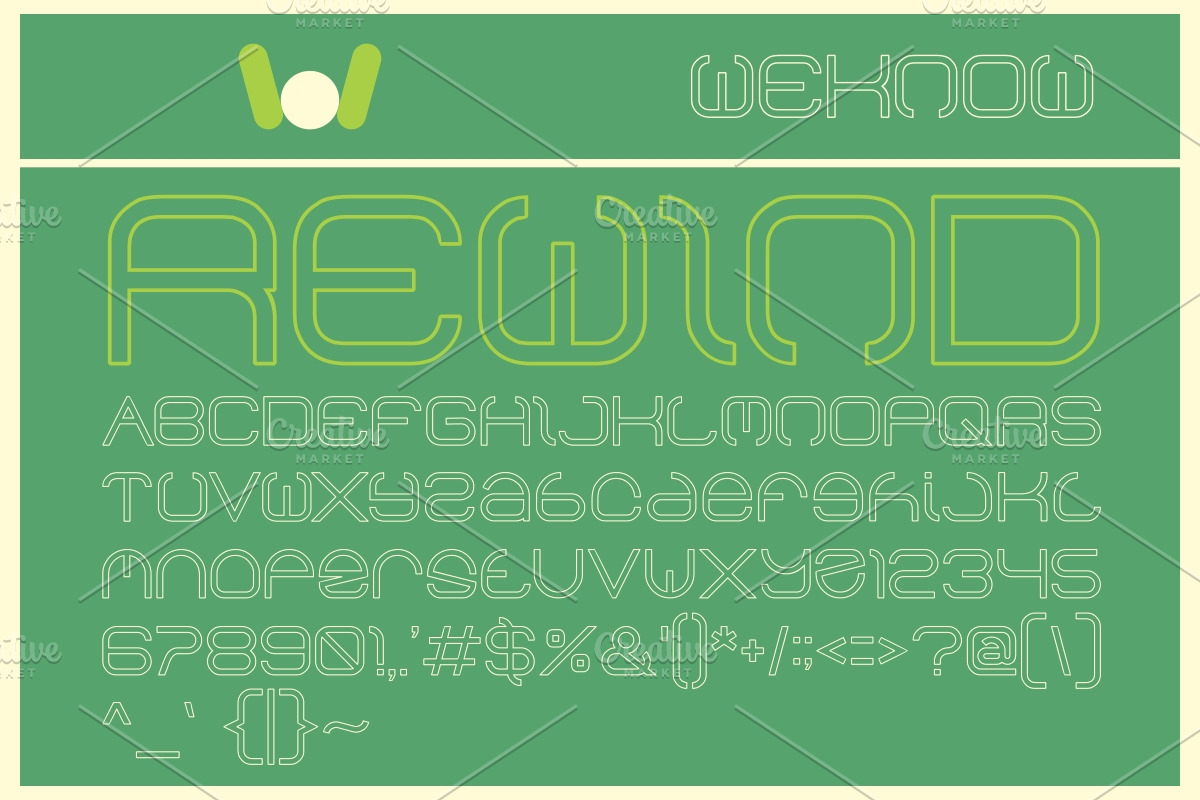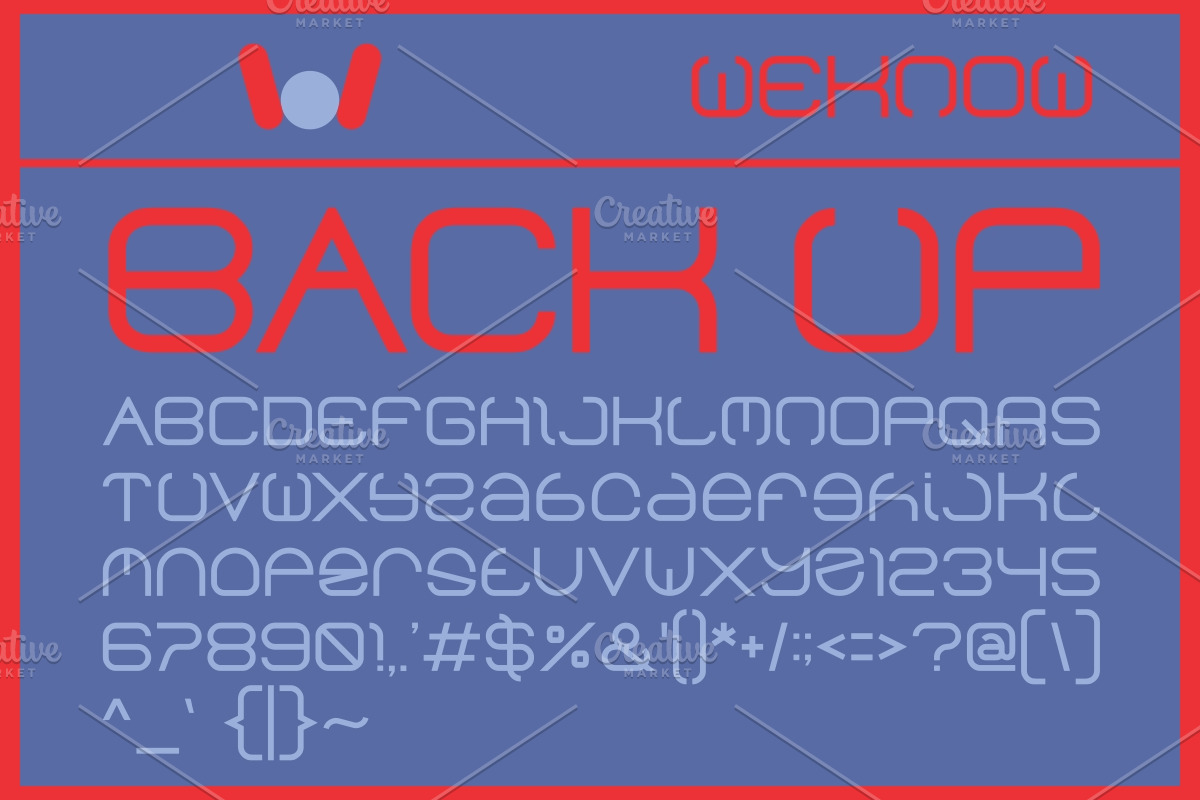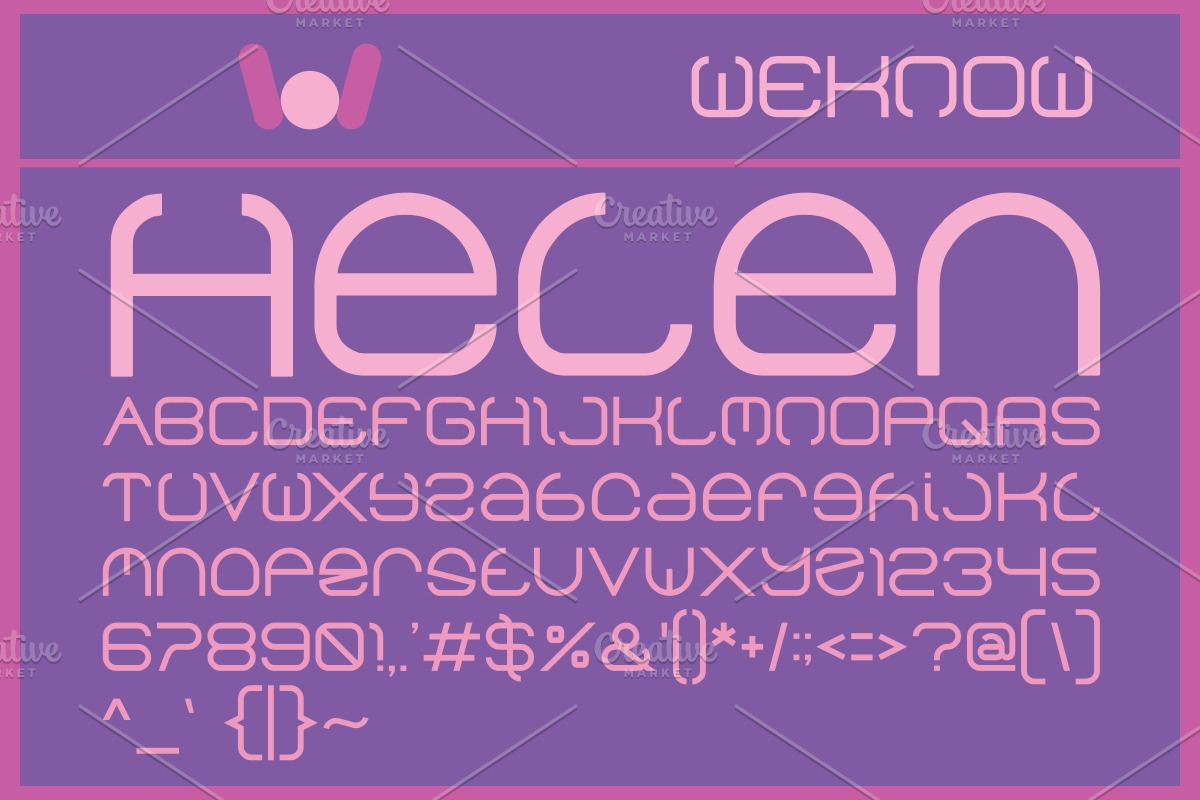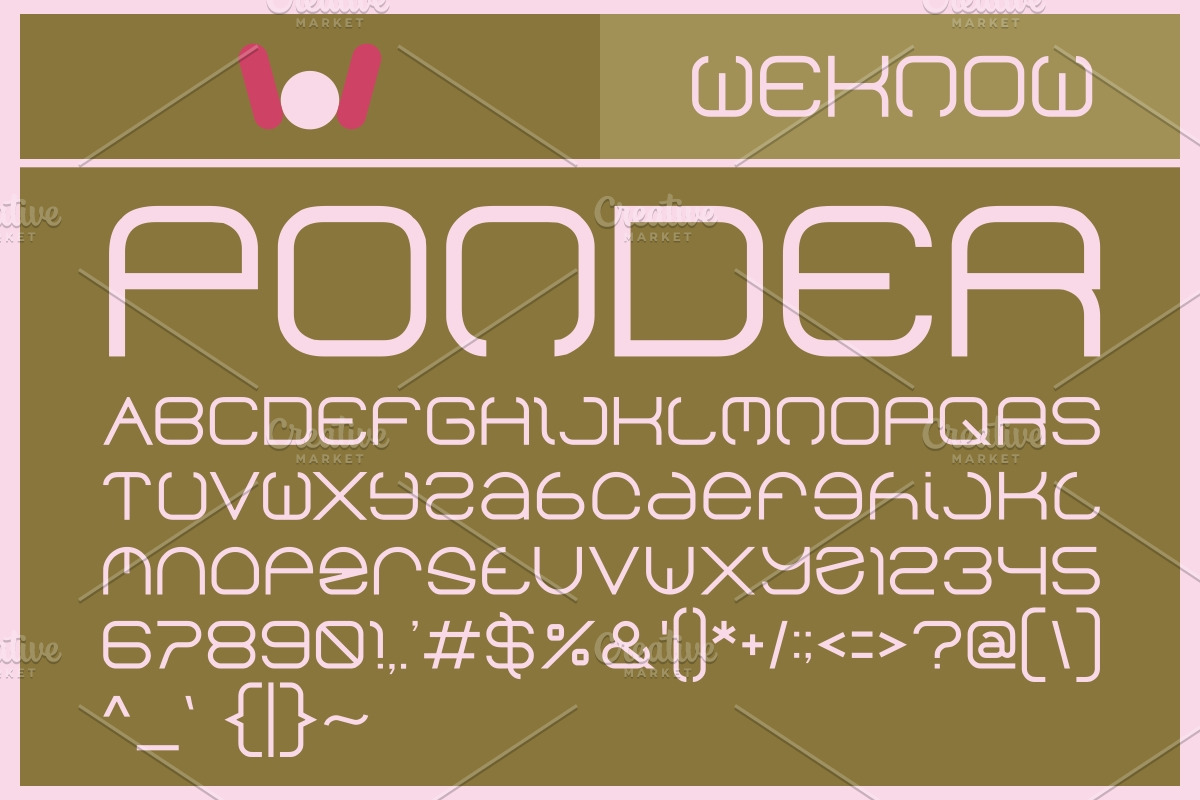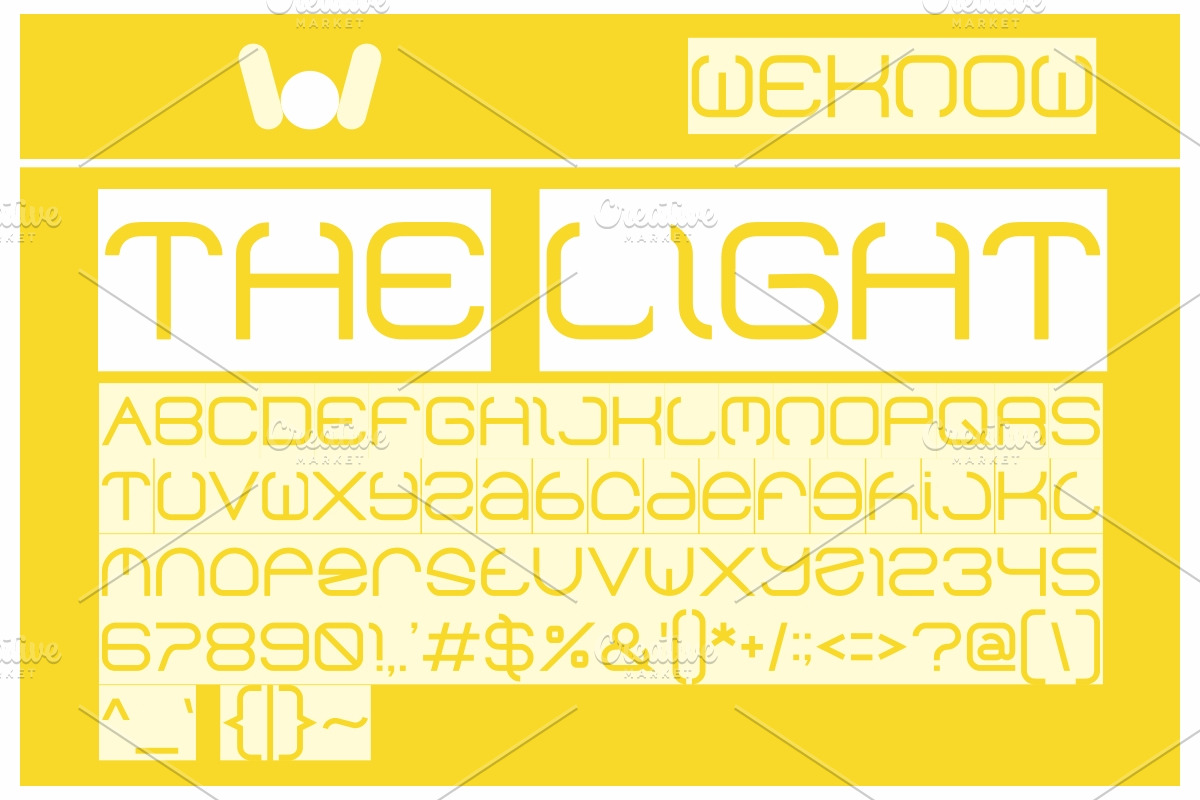
helen font
available style: Helen-Bold, Helen-Bold-Italic, helen-Hollow, helen-Hollow-Inverse, helen-Inverse, Helen-Italic, helen-Light
Why helen font is worth a look
helen font by weknow fits naturally into Branding, posters, packaging, typography.